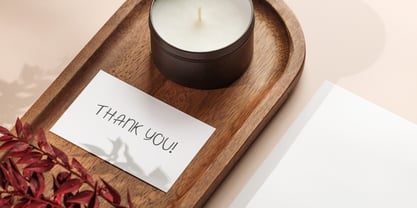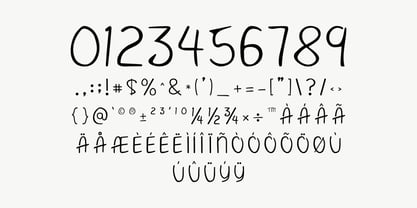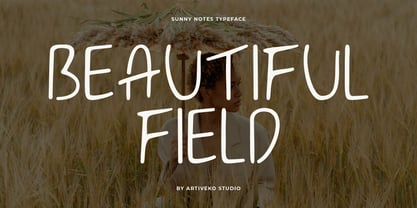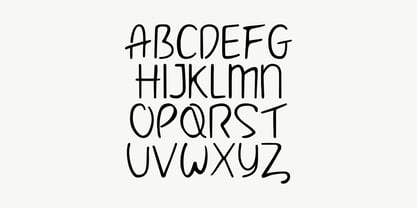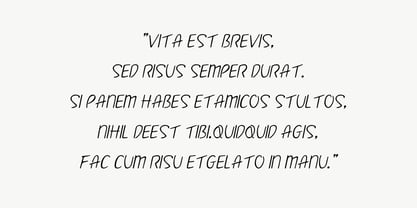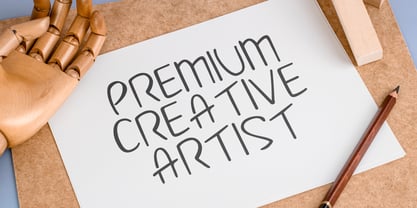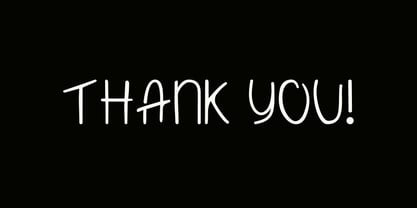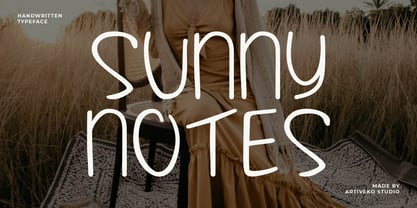
Sunny Notes
by Artiveko
The Sunny Notes Font Family was designed by Iwan Alwan and published by Artiveko. Sunny Notes contains 2 styles and family package options. More about this family
Sunny Notes is a joyful handwritten font that captures the spirit of sunny days and spontaneous creativity. With bouncy strokes, playful curves, and a casual rhythm, Sunny Notes feels like a friendly note scribbled on a postcard — warm, personal, and full of life. It’s perfect for quotes, social media, planners, greeting cards, stickers, children’s projects, and anything that needs a happy, human touch.
Designed to look effortlessly natural, Sunny Notes includes uppercase and lowercase letters, multilingual support, and fun ligatures that enhance its handwritten charm. Whether you're creating cozy lifestyle content or playful branding, this font brings an uplifting, handwritten vibe to your designs.
Let your words smile on the page — with Sunny Notes, where every letter feels like a ray of sunshine.